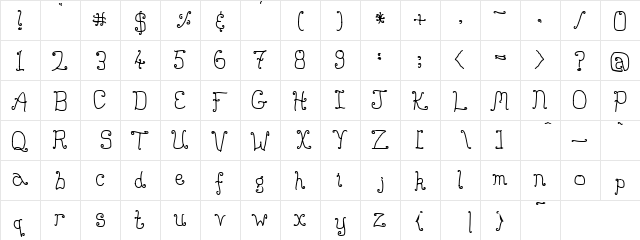
Buttmunch Regular
Design Context for Buttmunch Typeface
Buttmunch is a composed and adaptable typeface that performs quietly and consistently across a wide range of design contexts.